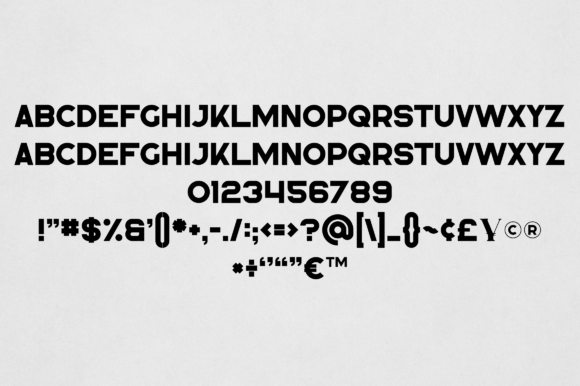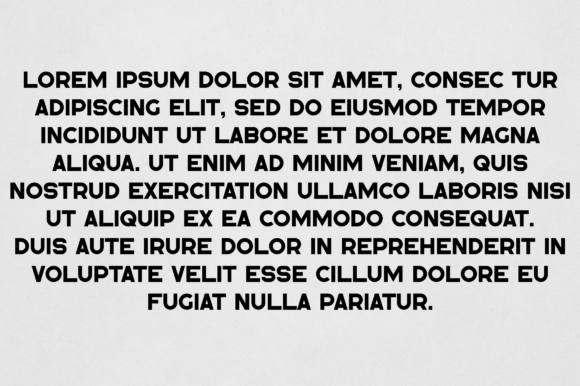
Introducing Addison Font: Elevate Your Typography with Elegance and Versatility
In the world of design, typography plays a crucial role in conveying messages, expressing creativity, and establishing brand identities. Among the myriad of fonts available, Addison Font stands out as a beacon of elegance and versatility. This exquisite font is designed to transform your typography into a unique masterpiece, perfect for a wide range of applications, from logos and branding to headlines and plain text.
The Essence of Addison Font
Addison Font is crafted with precision and passion, embodying a sophisticated aesthetic that can instantly elevate your designs. Its elegant strokes and versatile nature make it an ideal choice for designers and crafters looking to add a touch of luxury and refinement to their projects. Whether you’re working on branding projects, home-ware designs, product packaging, or magazine headers, Addison Font promises to deliver a stylish and impactful result.
One of the standout features of Addison Font is its incredible versatility. It’s a font that can seamlessly adapt to various design contexts, ensuring that your typography always looks stunning and cohesive. Here are some of the areas where Addison Font truly shines:
- Branding Projects: Establish a strong brand identity with Addison Font’s elegant and sophisticated look. It’s perfect for logos, business cards, and any material that represents your brand.
- Home-Ware Designs: Add a touch of elegance to your home-ware designs, making them stand out with a refined and luxurious feel.
- Product Packaging: Elevate your product packaging with Addison Font, making your products look premium and appealing to potential customers.
- Magazine Headers: Create captivating magazine headers that grab attention and set the tone for your content.
- Text Overlay: Use Addison Font as a stylish text overlay on any background image, adding depth and sophistication to your visual compositions.
Why Choose Addison Font?
With so many fonts available, why should Addison Font be your go-to choice? Here are a few compelling reasons:
- Unique Typography: Addison Font offers a unique and distinctive look that can set your designs apart from the crowd.
- Elegance and Sophistication: Its elegant design adds a touch of sophistication to any project, making it perfect for luxury brands and high-end designs.
- Versatility: As mentioned earlier, Addison Font’s versatility is unmatched, making it suitable for a wide range of design applications.
- User-Friendly: Designed with usability in mind, Addison Font is easy to integrate into your projects, ensuring a smooth design process.
Tips for Using Addison Font Effectively
To get the most out of Addison Font, consider the following tips:
- Pair with Complementary Fonts: For maximum impact, pair Addison Font with complementary fonts that enhance its elegance and sophistication.
- Experiment with Colors: Don’t be afraid to experiment with different colors to find the perfect match that accentuates your design.
- Pay Attention to Spacing: Ensure adequate spacing between letters and lines to maintain readability and aesthetic appeal.
- Be Creative: Lastly, don’t hesitate to experiment and push the boundaries of what’s possible with Addison Font.
Addison Font is more than just a font; it’s a design statement that can elevate your typography to new heights. Its elegance, versatility, and unique charm make it an invaluable asset for designers and crafters looking to create stunning visual content. Whether you’re aiming to establish a strong brand identity, add a touch of luxury to your designs, or simply explore new typography possibilities, Addison Font is an excellent choice. Embrace the world of Addison Font and discover a new dimension of typographic excellence.